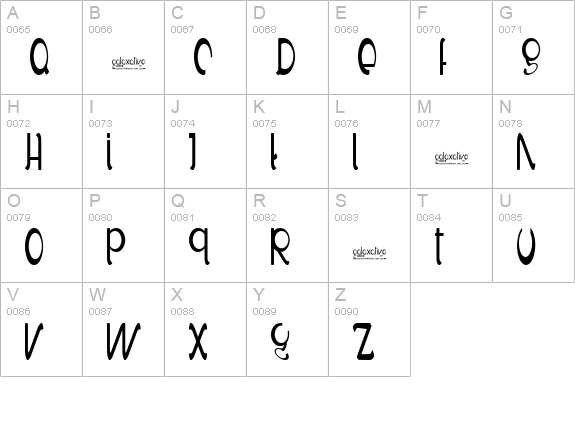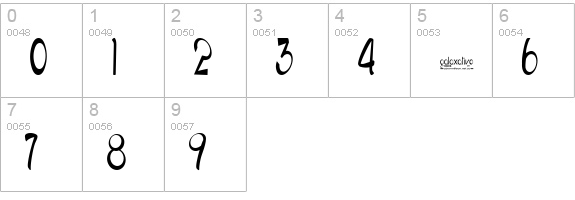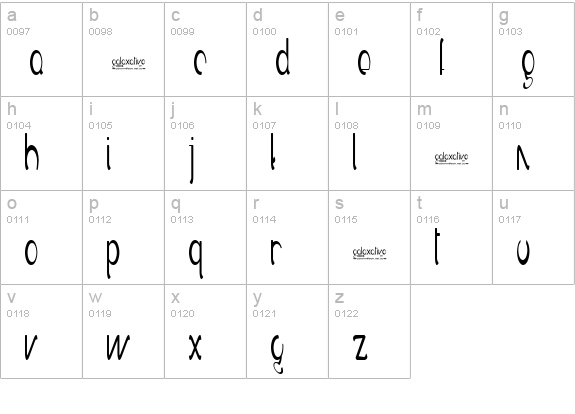
Galaxative tower Font Details
Introducing Galaxative Tower Font, a mesmerizing typeface that takes you on an intergalactic journey through the stars and beyond. This font is designed to captivate your imagination and transport you to a futuristic world where creativity knows no bounds. Galaxative Tower Font is an exceptional display font that combines sleek lines and sharp edges, reminiscent of a futuristic skyscraper reaching towards the heavens. Its unique and otherworldly design is perfect for adding a touch of cosmic flair to your projects. This font offers a wide range of characters, including uppercase letters, lowercase letters, numbers, and punctuation marks, allowing you to create captivating headlines, logos, posters, and more. With its bold and eye-catching appearance, Galaxative Tower Font will make your designs stand out from the crowd. But what sets Galaxative Tower Font apart is that it is freely available to download at FontsMarket.com. Yes, you read that right – this extraordinary font can be yours without any cost. FontsMarket.com is a trusted source for high-quality fonts, and they are proud to offer Galaxative Tower Font as a free download to their valued users. So why wait? Unleash your creativity and embark on a cosmic design journey with Galaxative Tower Font. Download it now from FontsMarket.com and let your imagination soar to new celestial heights.